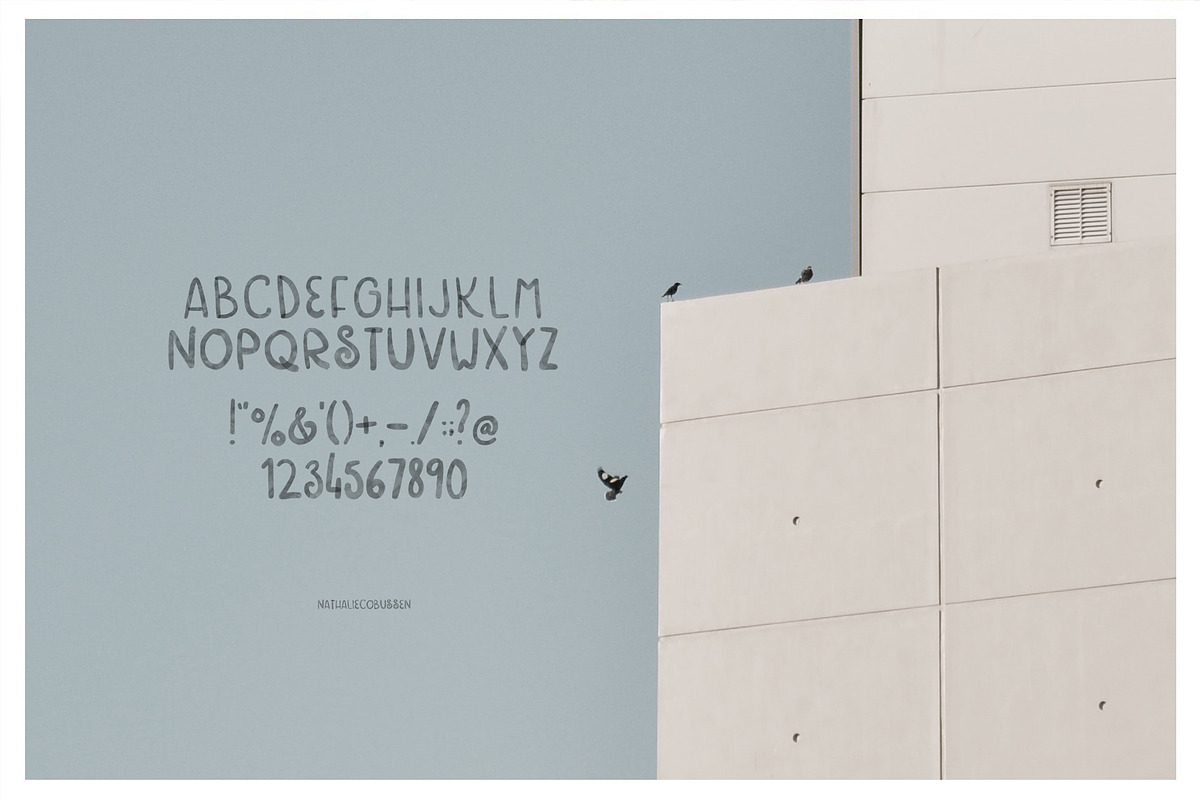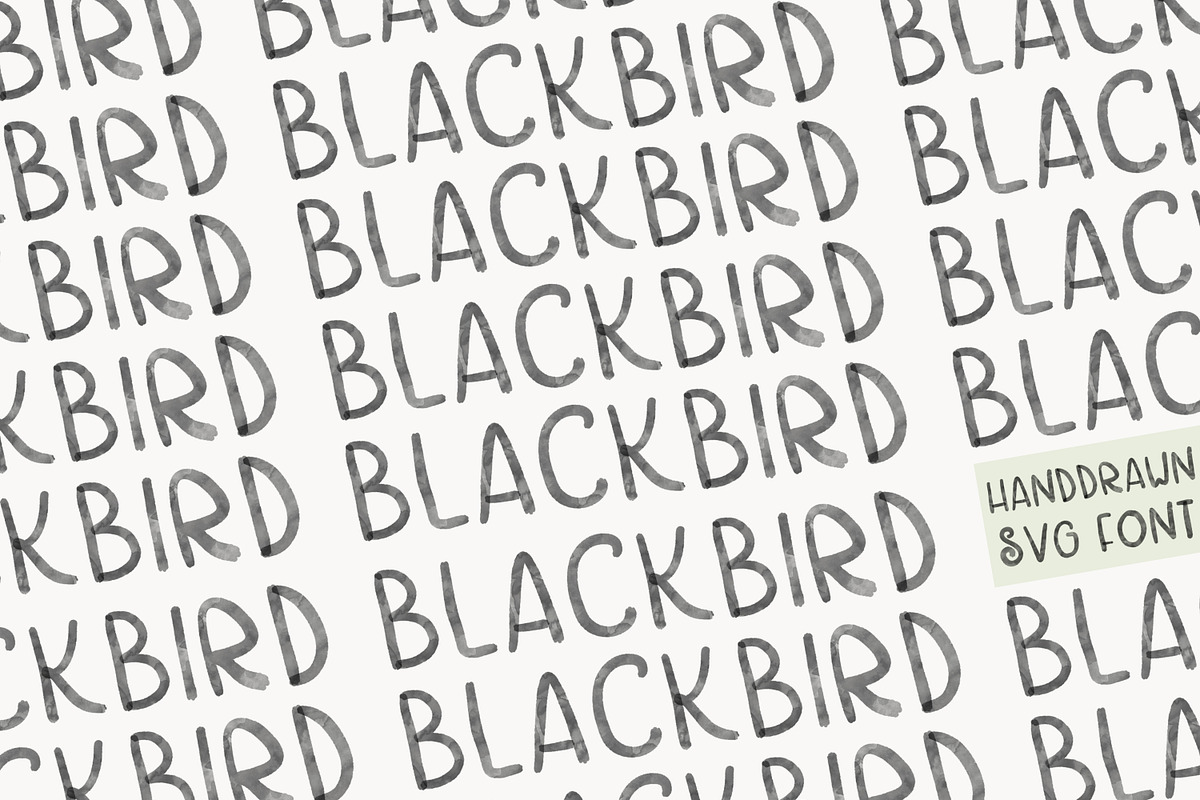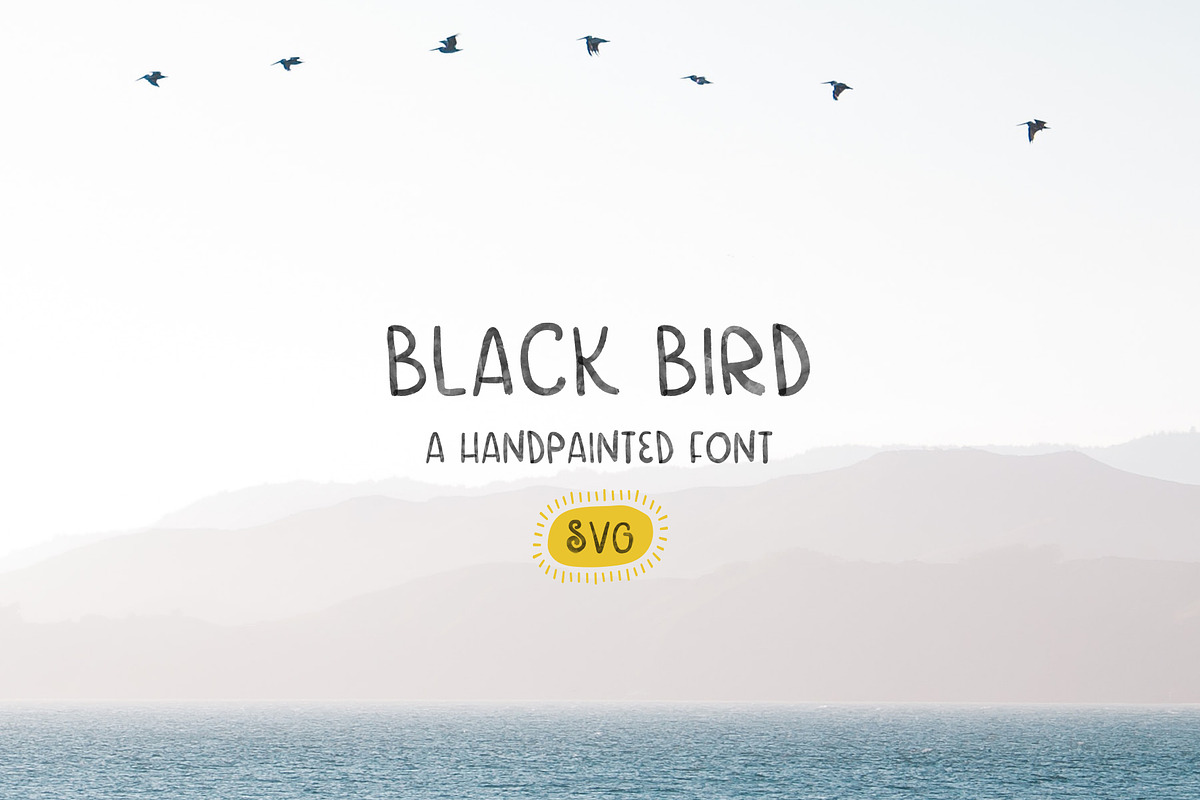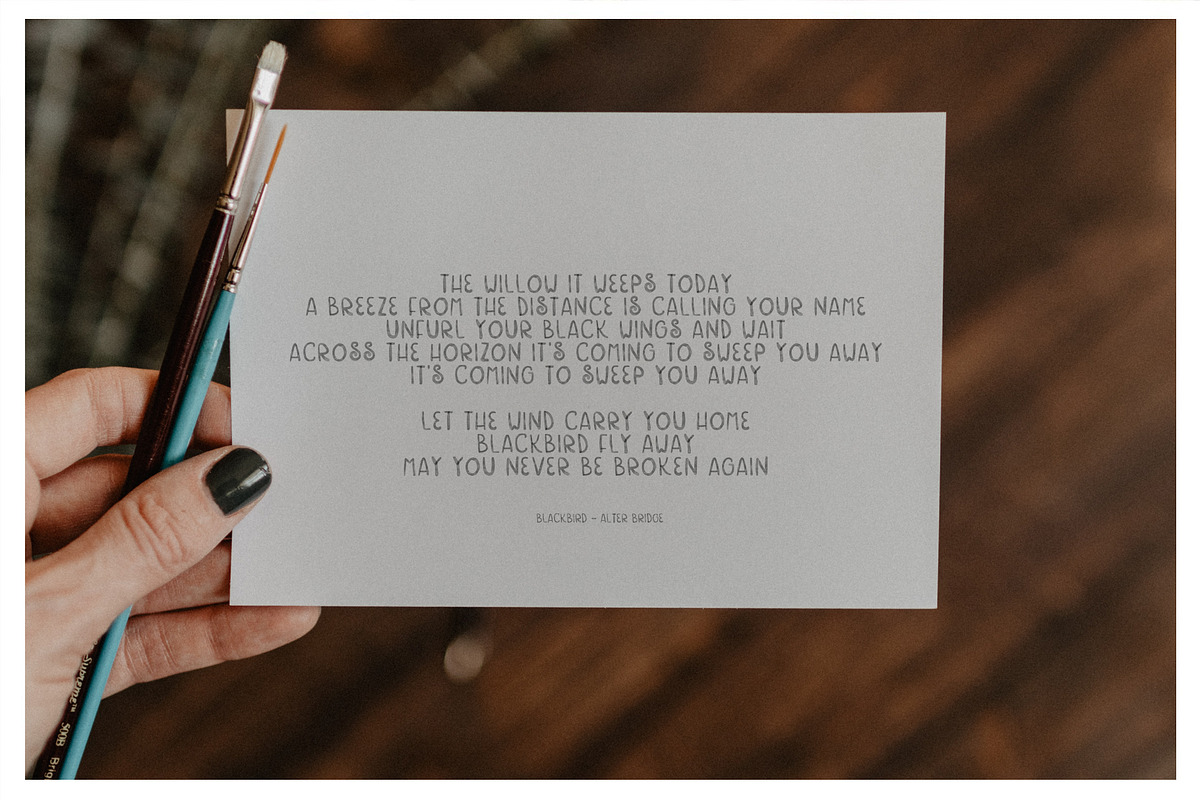
Black Bird a Handwritten Font
BlackBird is a simple but playful handpainted SVG font.
It comes with only uppercase, numerals and minimal punctuations. This font can always be the right choice for a lot of creative work and perfect for nursery wall art, children’s books and scrapbooking.
Black Bird a Handwritten Font by nathaliecobussen fits naturally into Branding, posters, packaging, typography.